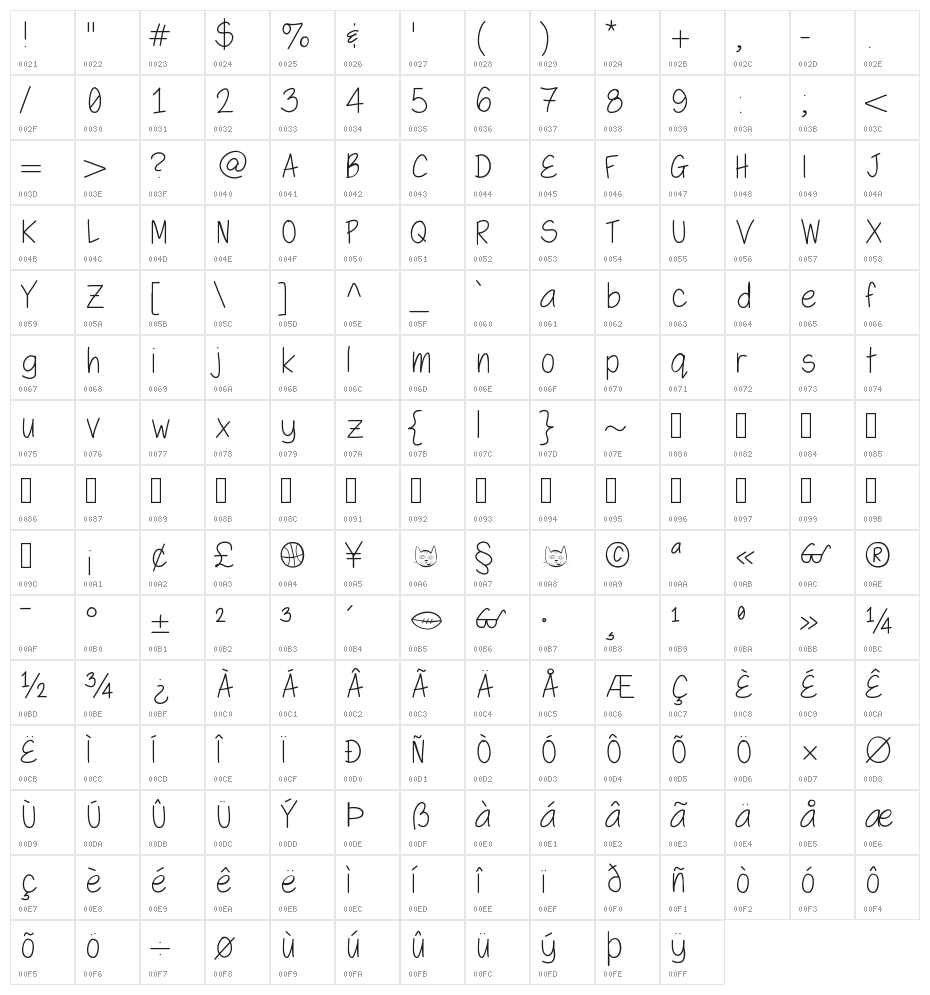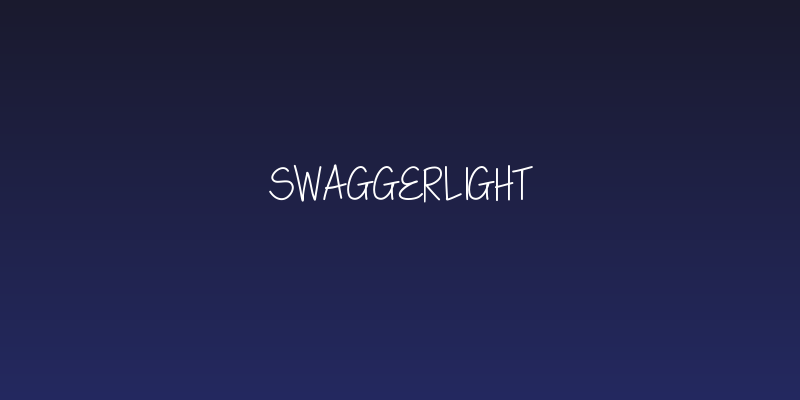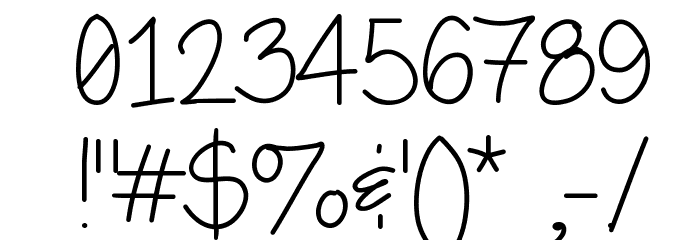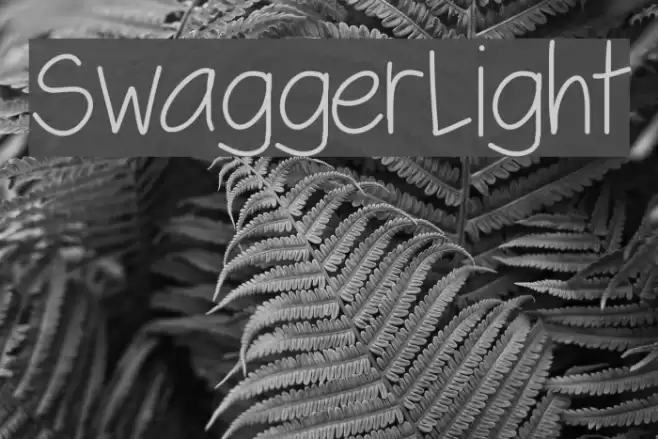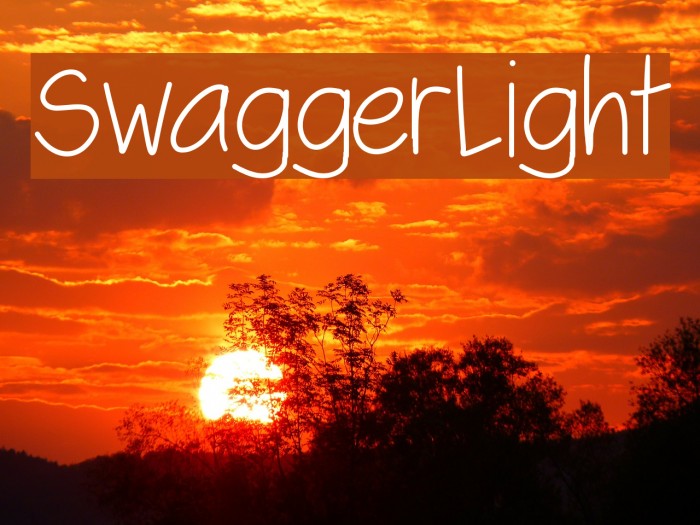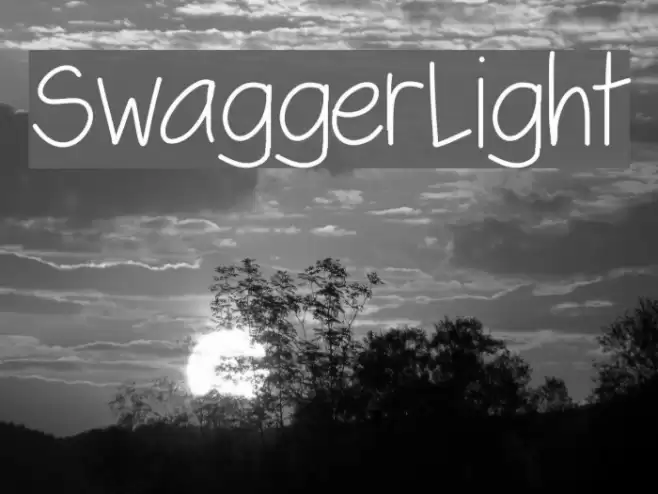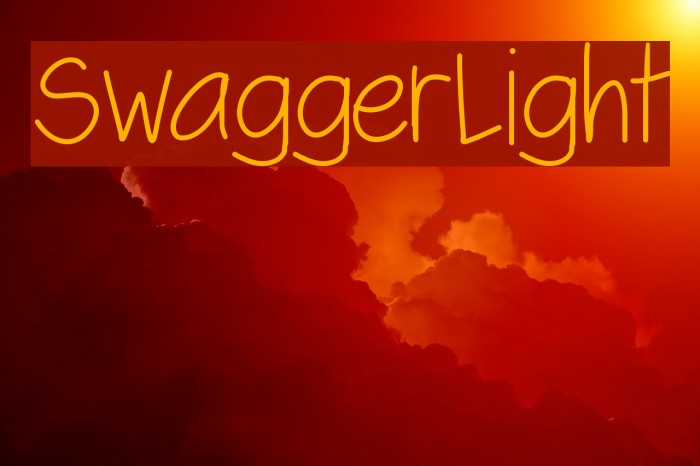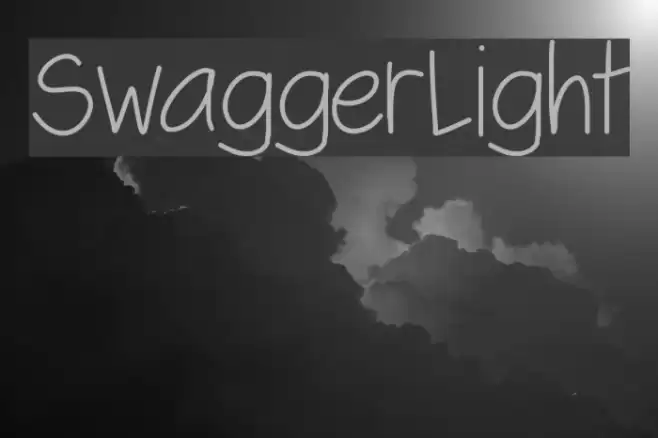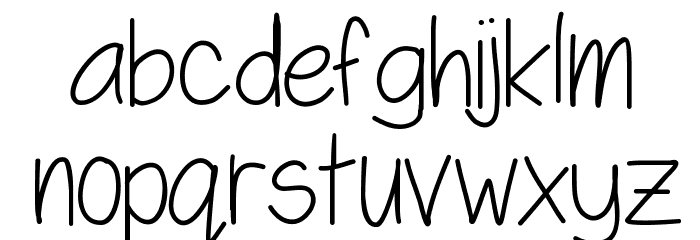
SwaggerLight Font
SwaggerLight Description
This font features a playful and casual handwritten style, characterized by its smooth, flowing lines and slightly irregular shapes. The uppercase letters maintain a consistent height, while the lowercase letters exhibit a charming unevenness that adds to its informal appeal. The numbers are clear and legible, matching the overall aesthetic of the letters. Special characters are included, maintaining the same whimsical style. The strokes are consistent in width, providing a harmonious and balanced look. This font is perfect for projects that require a personal touch, such as invitations, greeting cards, or playful branding.
| Overall Style | Casual, Playful |
| Use Case | Headlines, Informal text, Personal projects |
| Proposed Projects | Ideal for invitations, greeting cards, playful branding, and personal projects. |